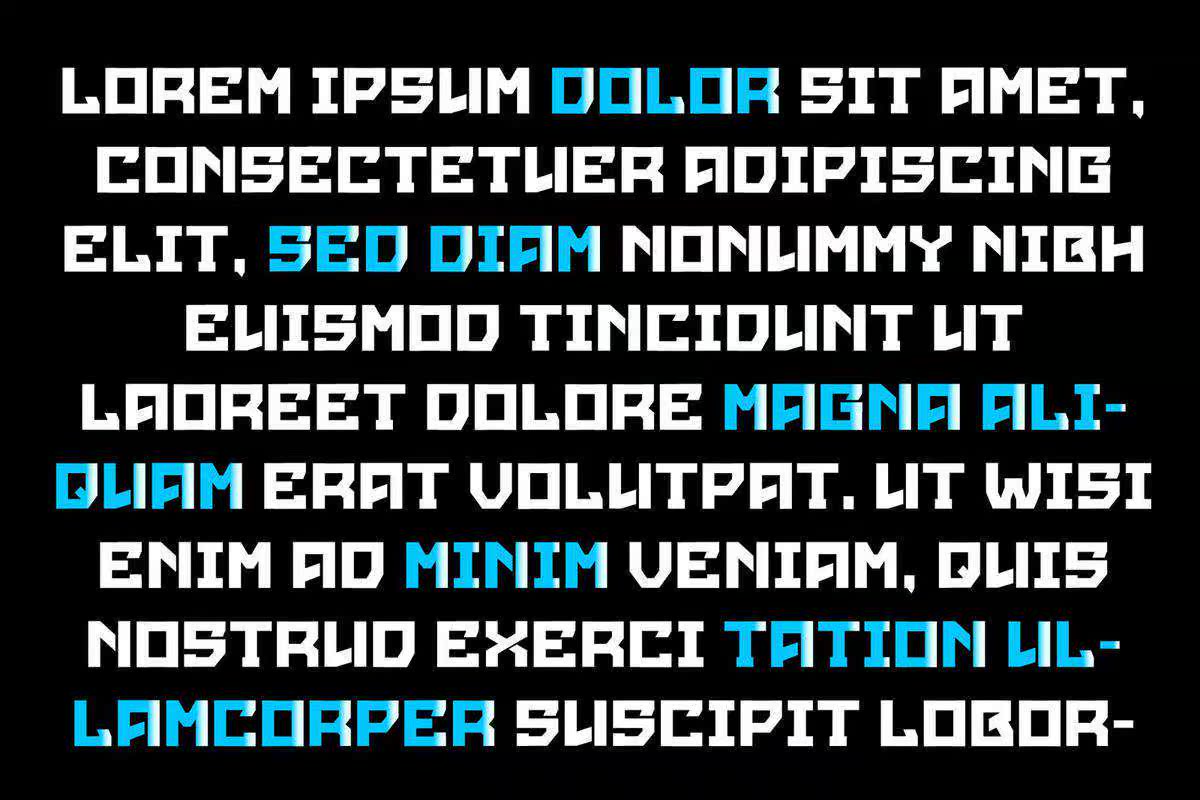
ManchaBoldFontwithstyletypefacebold.SetofMulticoloredBrightLetters刷新说明和YourDesign.VectorillInstruction.Isolatedonwhitebackground.ManchaBoldFontwithstyletypefacebold.SetofMulticoloredBrightLetters刷新说明和YourDesign.VectorillInstruction.Isolatedonwhitebackground。